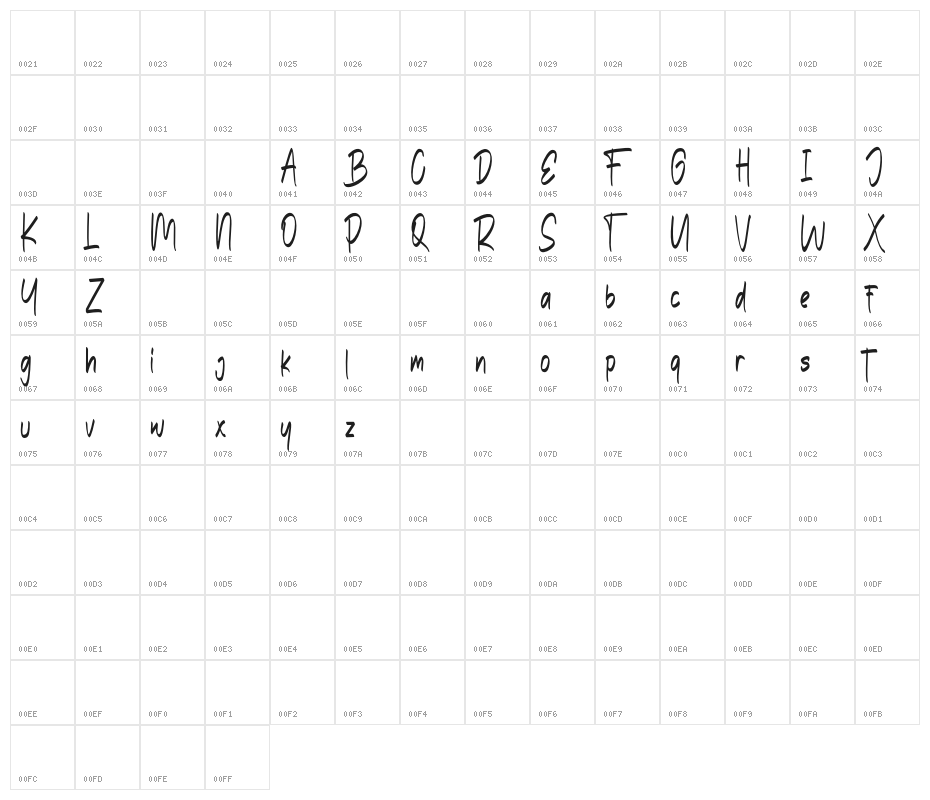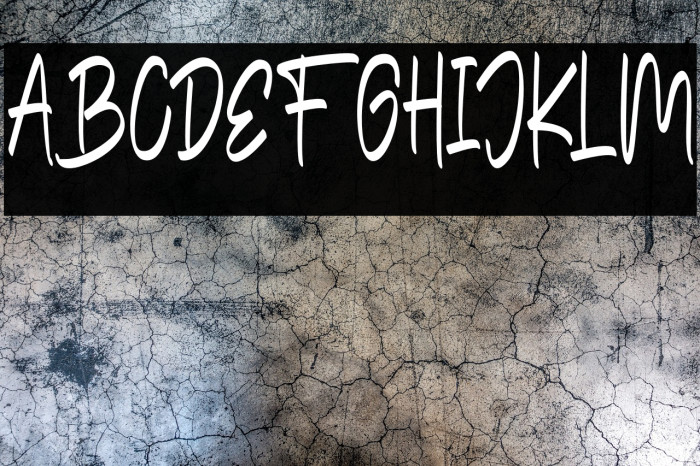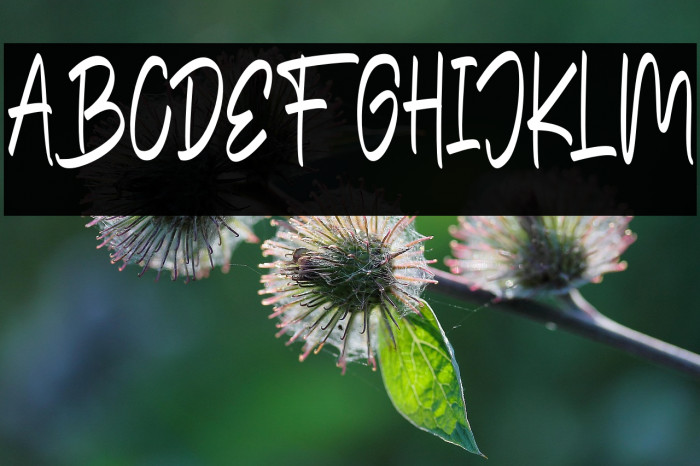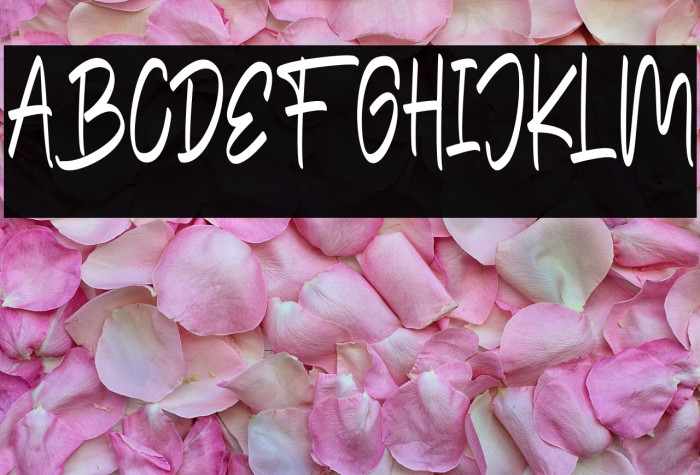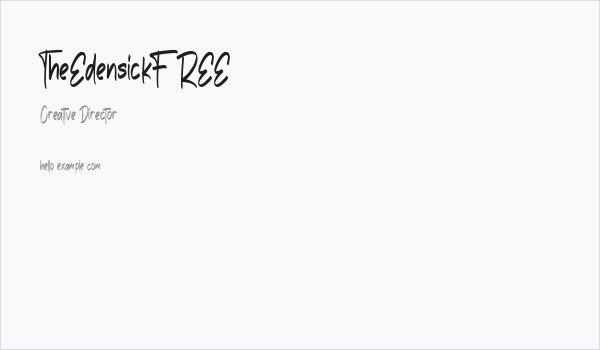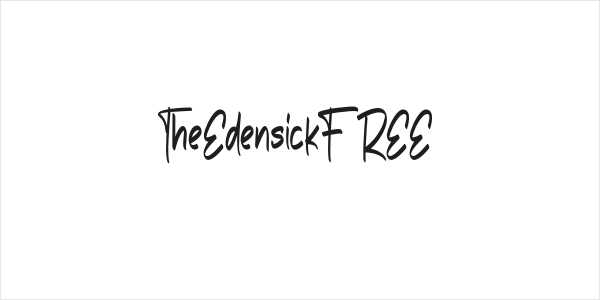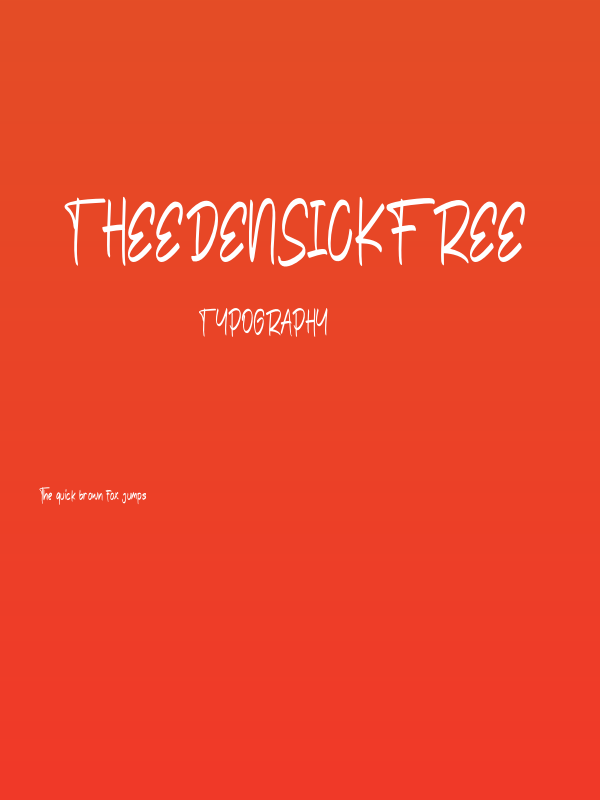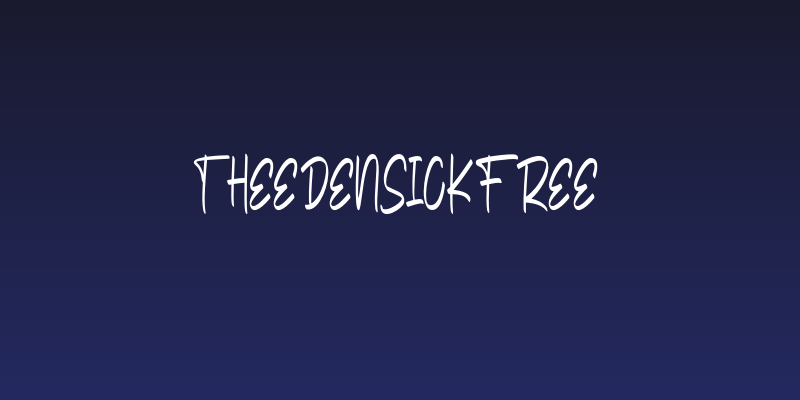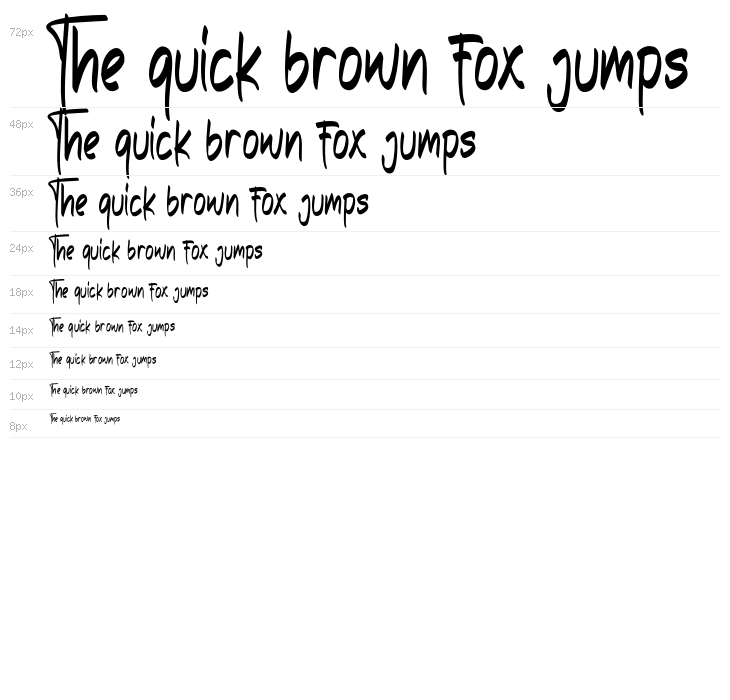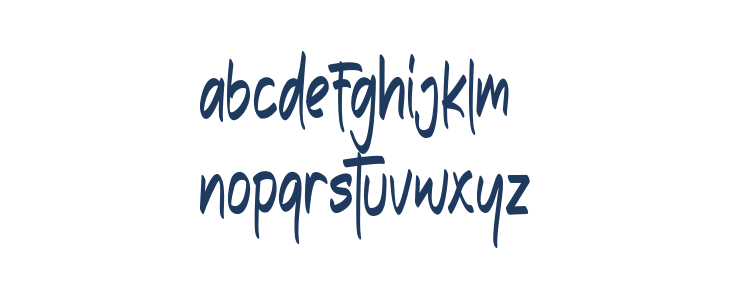
TheEdensickFREE Font
TheEdensickFREE Description
This font features a playful and energetic handwritten style, characterized by its irregular and dynamic strokes. The uppercase letters are tall and slightly narrow, with a casual flair that suggests movement and spontaneity. The lowercase letters maintain this lively aesthetic, with some characters having unique loops and curves that add to the font's charm. The overall appearance is informal and friendly, making it suitable for projects that require a personal touch. The font's design is consistent throughout, with a moderate contrast in stroke thickness, giving it a balanced yet lively look.
| Use Case | Logos, Headlines, Informal Text |
| Proposed Projects | Ideal for greeting cards, children's books, playful branding, and social media graphics. |